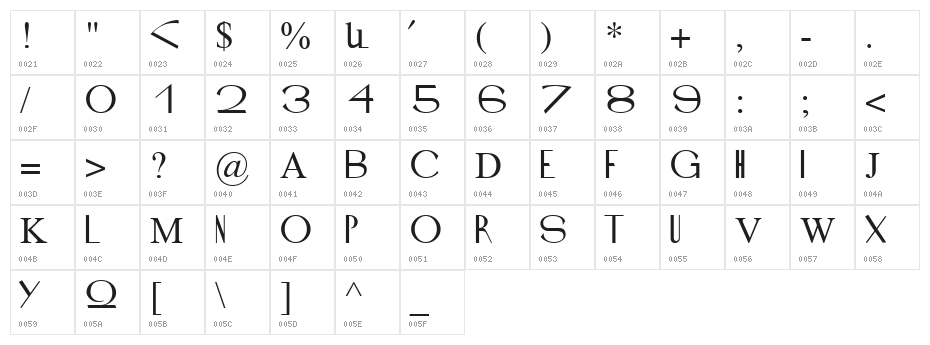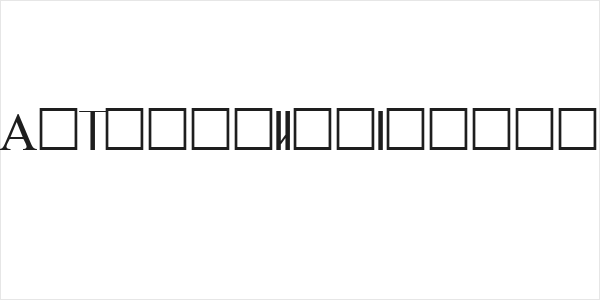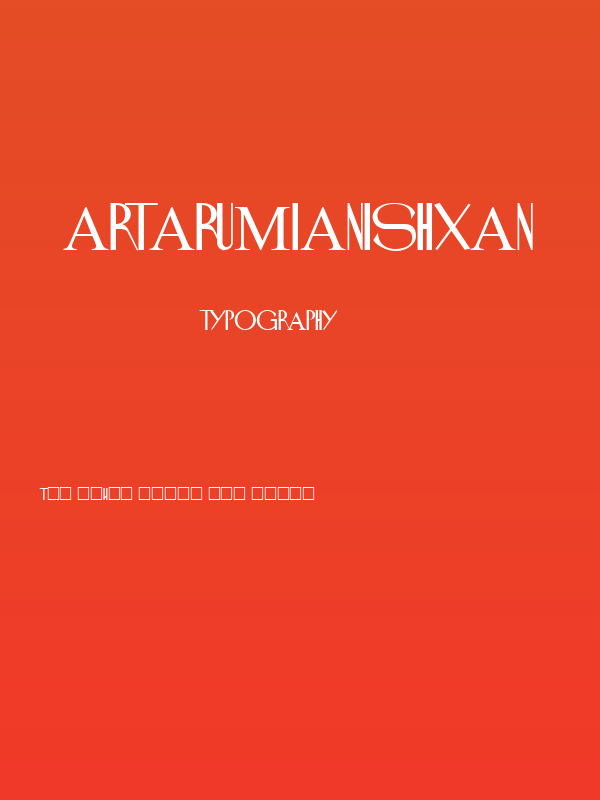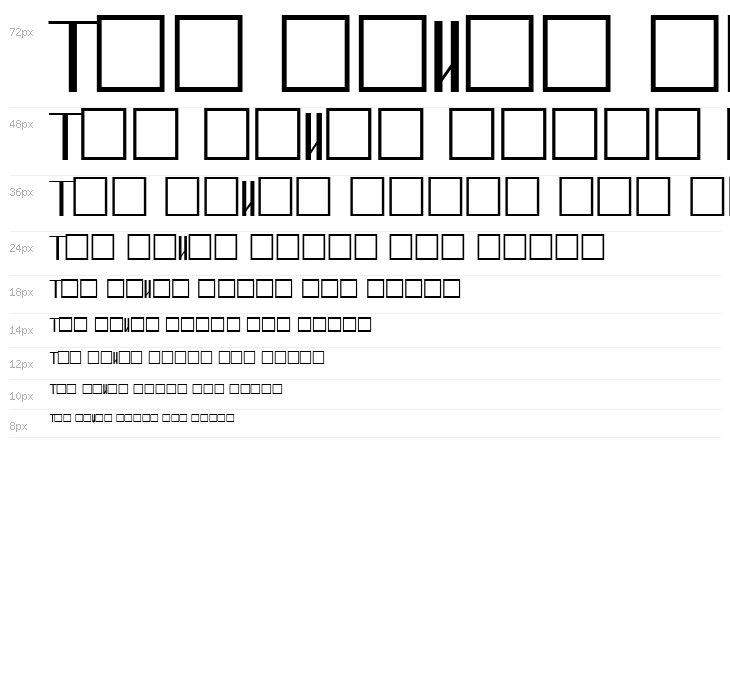
ArTarumianIshxan Font
ArTarumianIshxan Description
This font features a unique and artistic design with a blend of modern and classic elements. The uppercase letters exhibit a strong geometric influence, with sharp angles and clean lines that create a sense of elegance and sophistication. The lowercase letters maintain this geometric style, offering a cohesive look across different text sizes. The numerals are distinct and easy to read, with a slight curvature that adds a touch of softness to the overall design. Special characters are thoughtfully crafted, ensuring they complement the alphabetic characters seamlessly. This font stands out with its bold presence and artistic flair, making it suitable for creative and impactful designs.